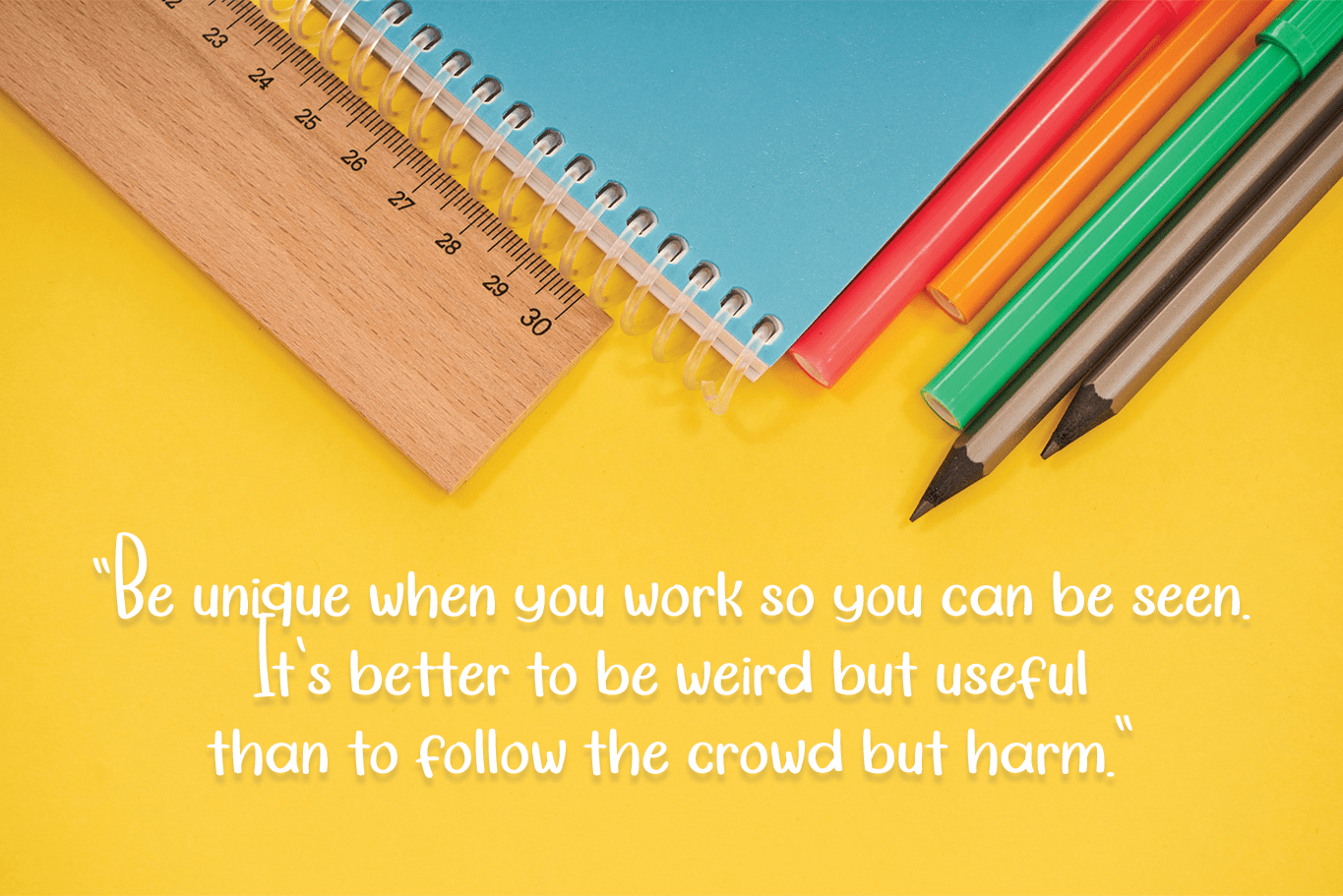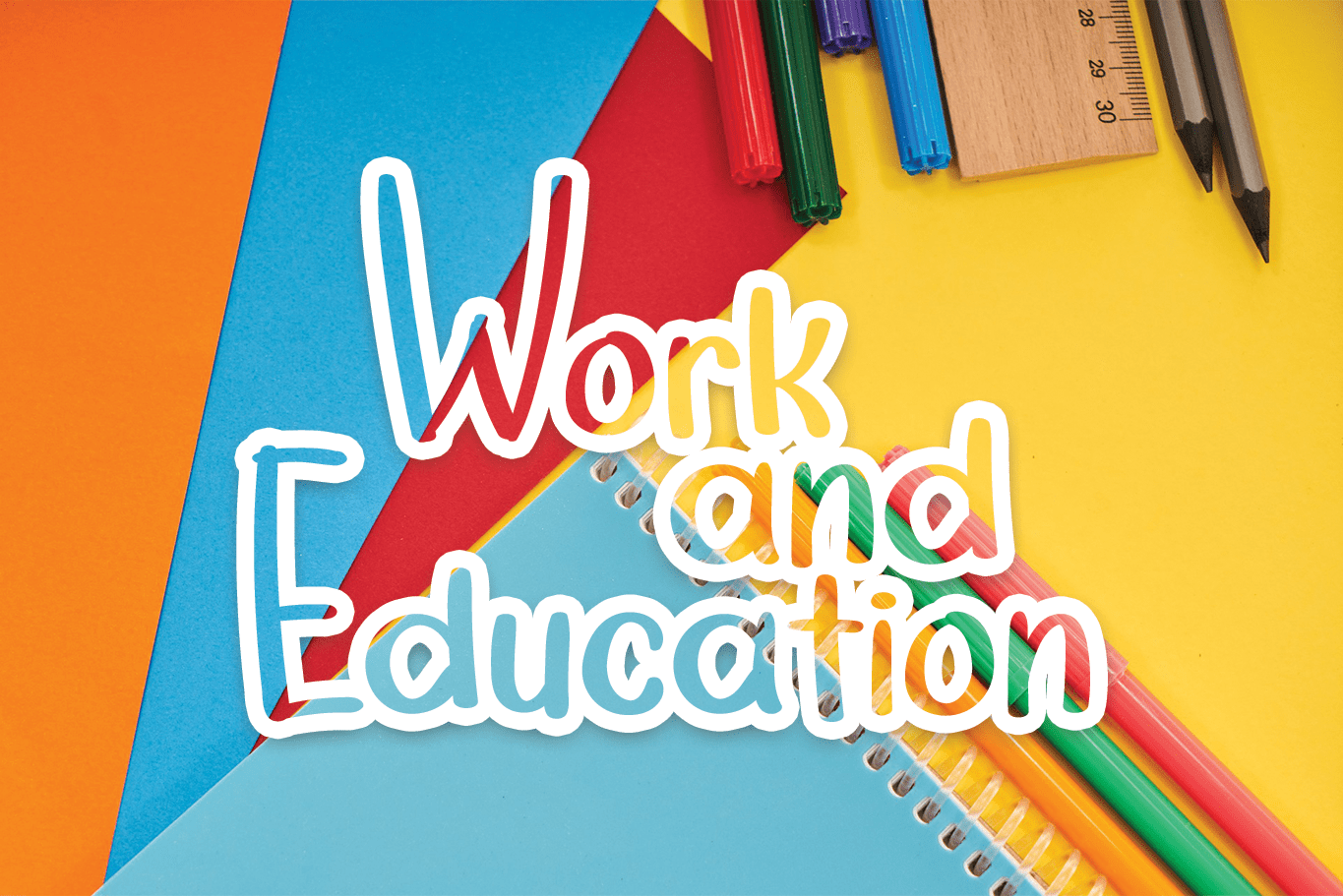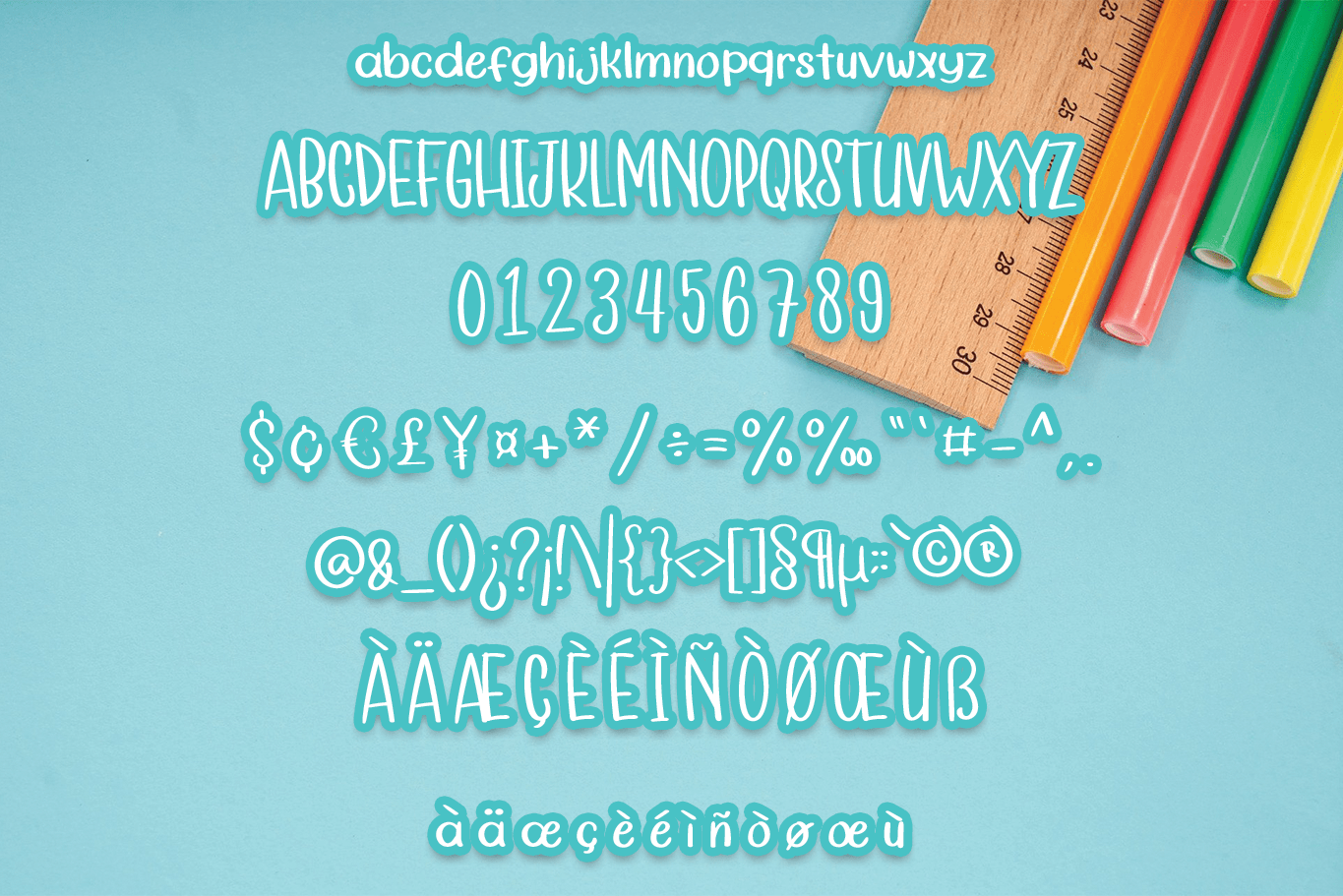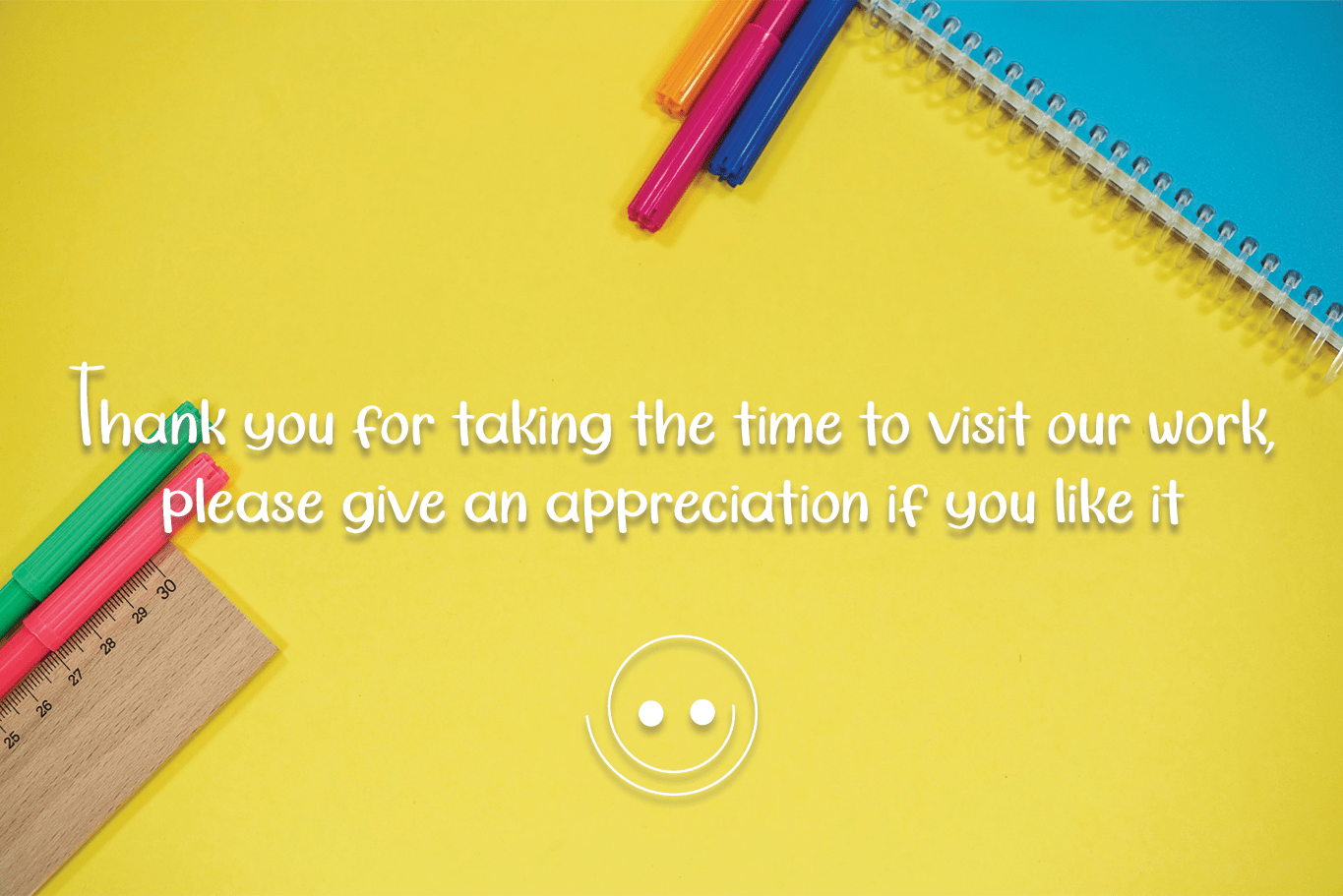
My Homework Font
My Homework Display Font
This is a sweet and friendly handwritten font. Its authentic look and feel will add a personal and realistic feel to your designs.